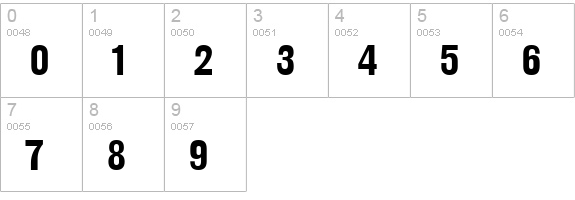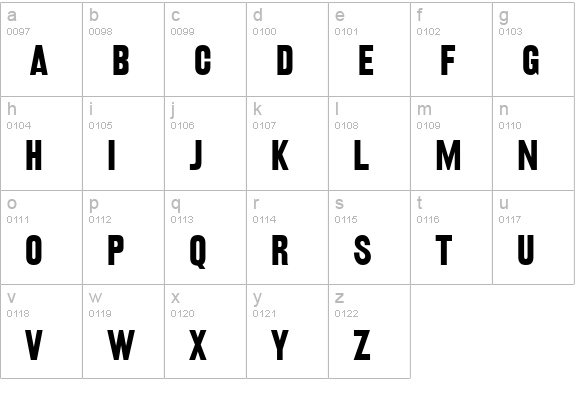
RailroadGothic Font Details
RailroadGothic font is a captivating typeface that exudes a sense of sophistication and timeless charm. With its bold and sturdy letterforms, this font is perfect for creating eye-catching headlines, signage, and logos that demand attention. Derived from the classic American Gothic style, RailroadGothic font maintains a unique blend of industrial elegance and vintage allure. Its clean lines and geometric shapes give it a distinct personality, while its subtle curves and refined details add a touch of refinement. One of the most remarkable features of RailroadGothic font is that it is freely available to download at FontsMarket.com. This means that designers and creatives from all walks of life can easily access and utilize this remarkable font for their projects without any financial constraints. Whether you are working on a modern advertisement campaign, a retro-inspired branding project, or a contemporary editorial layout, RailroadGothic font will effortlessly elevate your designs to new heights. Its versatility and legibility make it an ideal choice for both print and digital applications, ensuring that your message is conveyed with clarity and style. With its wide range of weights and styles, RailroadGothic font offers endless possibilities for customization and experimentation. From sleek and minimalist variations to bold and impactful designs, this font allows you to explore different aesthetics and adapt to various design contexts. So, if you are looking for a font that combines the charm of the past with the demands of the present, look no further than RailroadGothic font. Its free availability at FontsMarket.com makes it a valuable asset for any designer who seeks to create memorable and impactful visual experiences. Embrace the timeless elegance and download RailroadGothic font today.